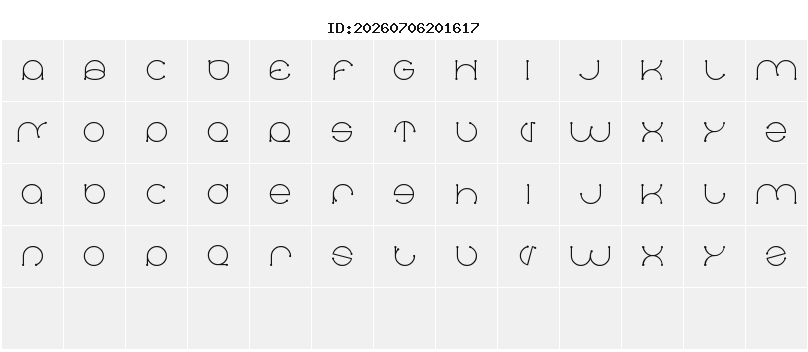
Dennis Vallera Preview
• Font Name: Dennis Vallera
• Full Font Name: Dennis Vallera
• Version: Version 1.00 February 3, 2012, initial release
About Dennis Vallera.ttf
Dennis Vallera.ttf is a modern, elegant sans-serif font designed for ultimate readability and visual harmony. Perfect for branding, headlines, web design, and print materials.